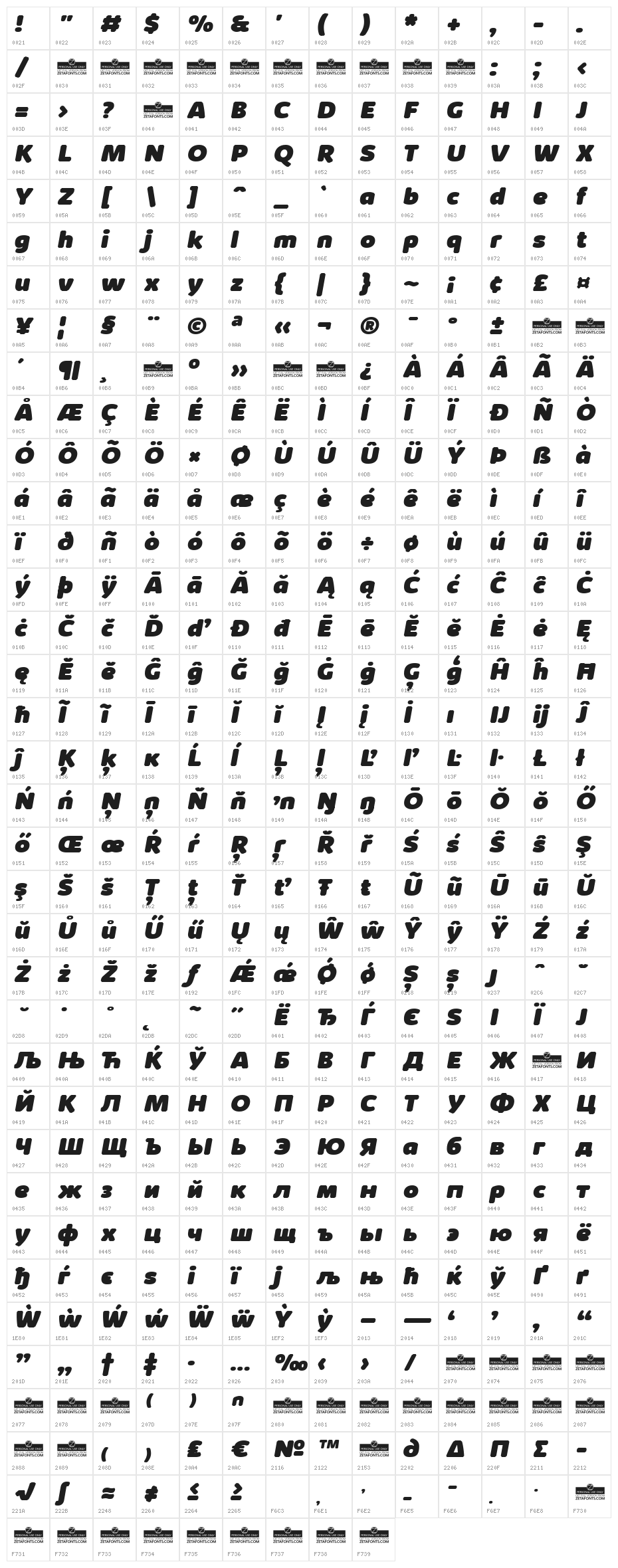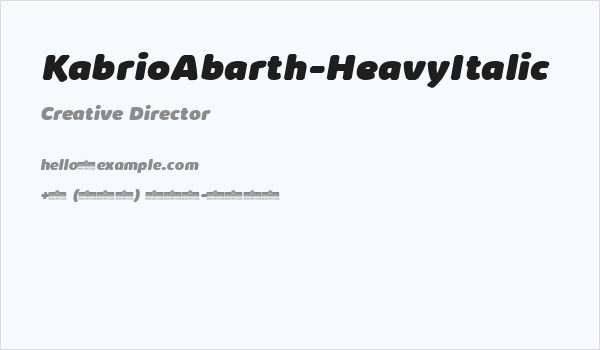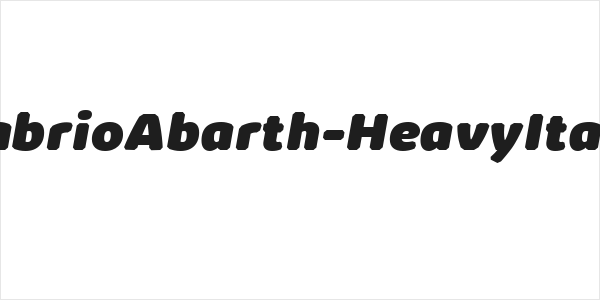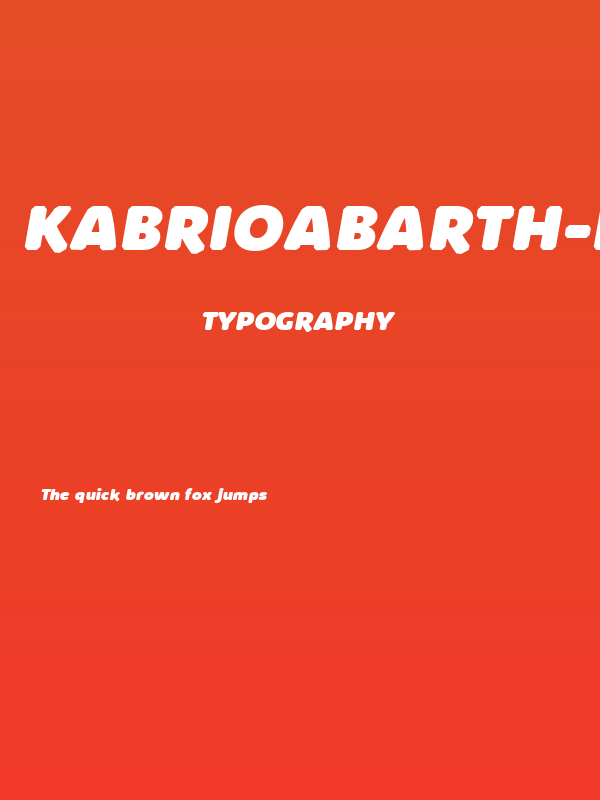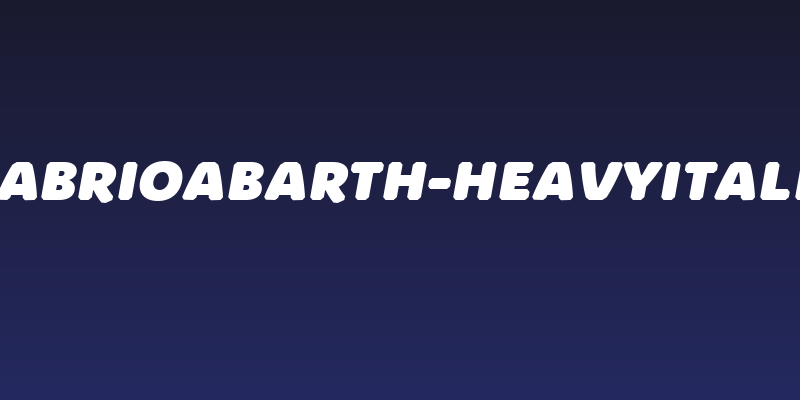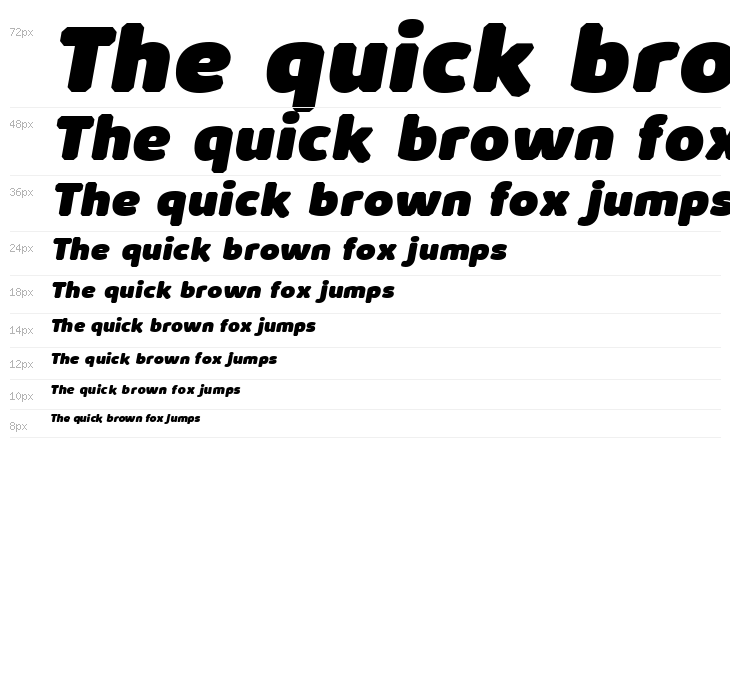
KabrioAbarth-HeavyItalic Font
KabrioAbarth-HeavyItalic Description
This font features a bold and heavy appearance with a distinct italic slant, giving it a dynamic and energetic feel. The characters are rounded and smooth, contributing to a friendly and approachable aesthetic. The uppercase and lowercase letters maintain consistent weight, ensuring readability and balance. The numbers and special characters follow the same stylistic cues, making them cohesive with the alphabet. The font's thick strokes and rounded edges make it suitable for impactful and eye-catching designs.
| Proposed Projects | Ideal for branding, advertising, and poster design where a strong, friendly presence is desired. |